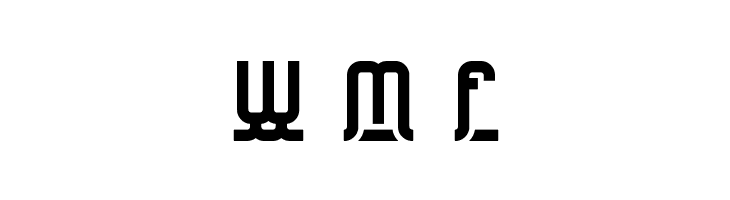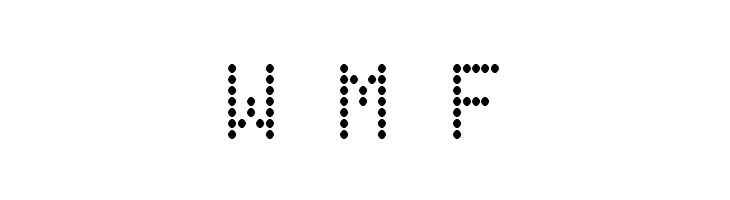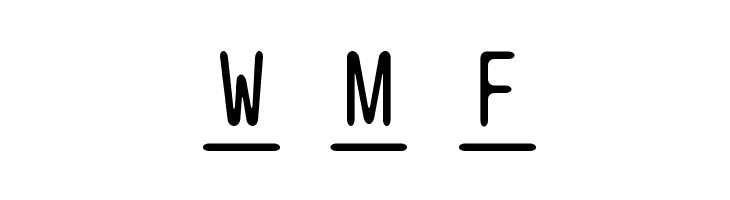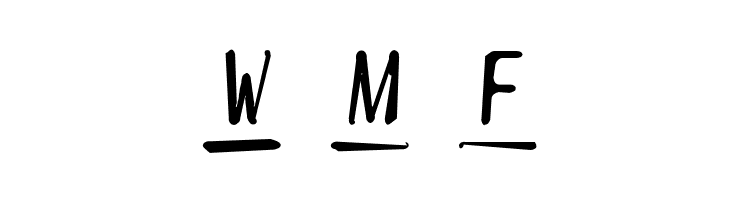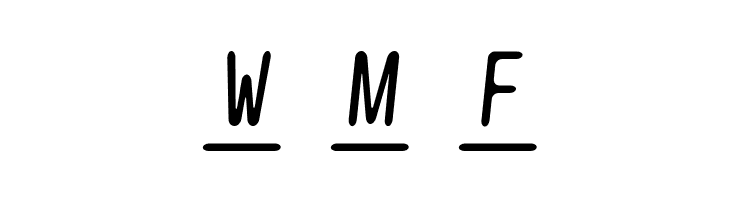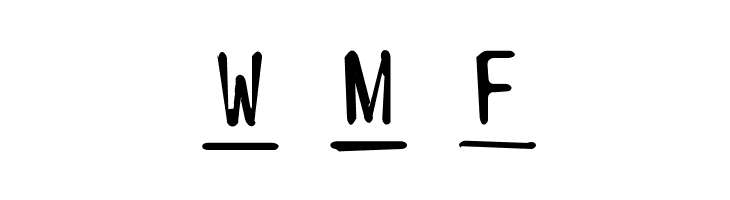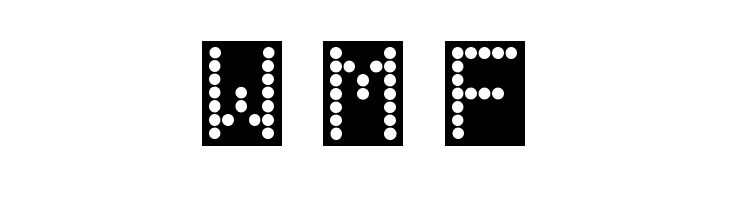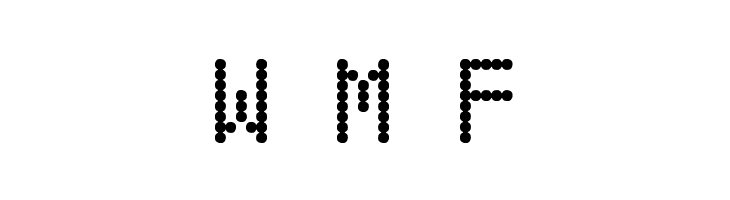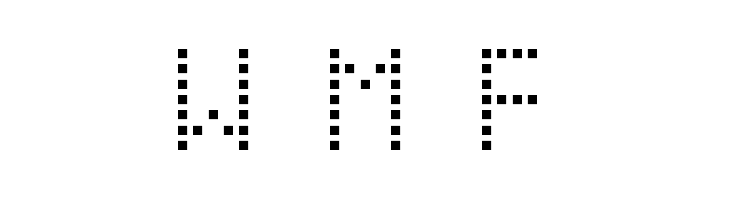
Score Board Font
A dot matrix style font with a digital, retro feel.
SCOREBOARD Font
Font by Woodcutter
A bold, geometric font inspired by classic mechanical scoreboards.
60s Scoreboard Regular Font
Font by John Isles
A dot matrix font with a retro, digital display aesthetic.
DJB Up on the Scoreboard Font
Font by Darcy Baldwin
A dot matrix font inspired by vintage digital scoreboards.
Crashed Scoreboard Font
Font by Dennis van Schajik - www.zopp.nl
A digital-inspired, segmented font with a bold, geometric design.
HISCORE Font
A pixelated, retro-style font inspired by classic arcade games.
HILOGINCON Font
Score Board St Font
Font by Southype
A dot matrix font with a retro, digital scoreboard style.
HILOGINBOLD Font
Scoreboard LED Regular Font
william jhordy
A pixelated, grid-based font reminiscent of LED displays.
Hydrogen Font
Font by Divide By Zero! - fonts.tom7.com
A pixelated, retro-inspired font with a bold, geometric design.
The Score Normal Font
Font by Jonathan Smith
A bold, italicized font with high contrast and dynamic slant.
HILOGINREG Font
A pixelated, retro-style font with a blocky, digital appearance.
Score Ship Font
Font by Jonathan S. Harris
A decorative, hand-drawn font with tribal-inspired patterns and tall, narrow letters.
HIAIRPORTARRIVAL Font
A pixelated, blocky font with a retro digital aesthetic.
HISKYFLIPPERHIBOLD Font
A bold, pixelated font with a retro, digital aesthetic.
Soccer Scoreboard Font
Chequered Ink - chequered.ink/